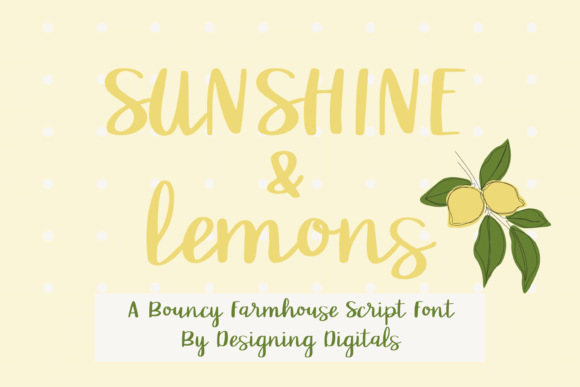
Introducing Sunshine and Lemons Font, a captivating script font that exudes rustic charm and cheerfulness.
This enchanting font evokes the warmth of sun-kissed fields and the vibrant hues of citrus groves, adding a touch of whimsical flair to your digital designs.
Crafted with meticulously hand-painted strokes, Sunshine and Lemons Font boasts a unique combination of whimsical sans-serif uppercase letters and playful script lowercase characters. The result is a visually striking font that dances across your screen, inviting you to explore its creative possibilities.
With its delightful design, Sunshine and Lemons Font is the ideal choice for a wide range of projects, from cheerful logos and heartfelt greeting cards to eye-catching t-shirt designs and vibrant stickers. It effortlessly adds a touch of individuality to your social media posts and breathes life into any craft or project you undertake.
Step into a world of creativity and charm with Sunshine and Lemons Font. Let your imagination soar as you explore the endless possibilities it offers, and add a splash of sunshine and zest to your digital creations.